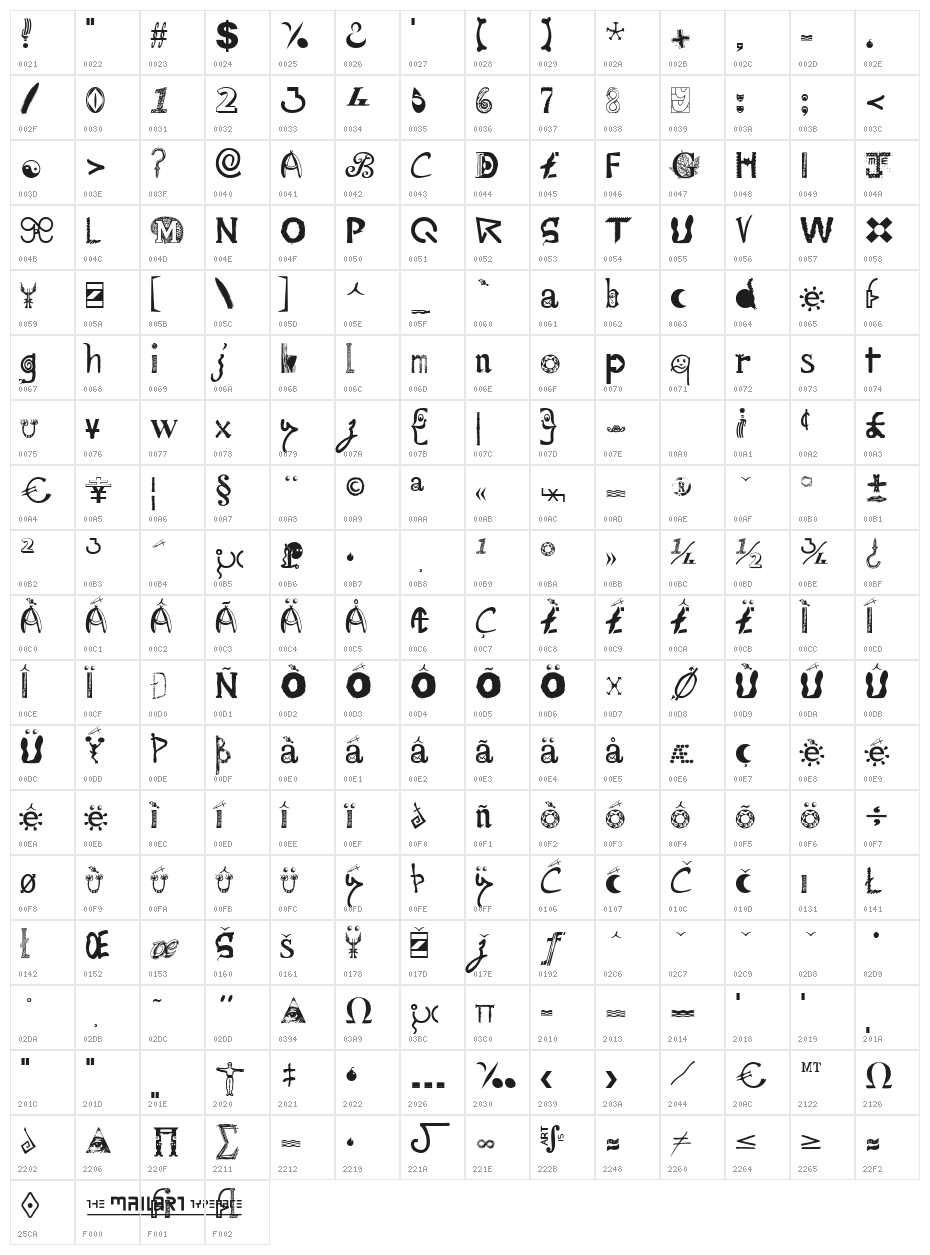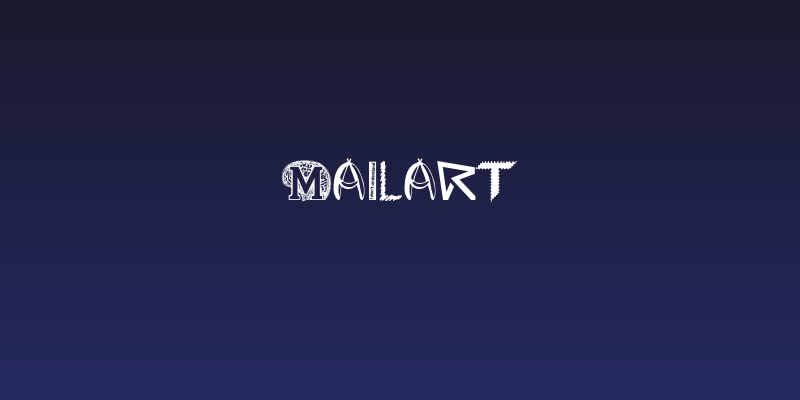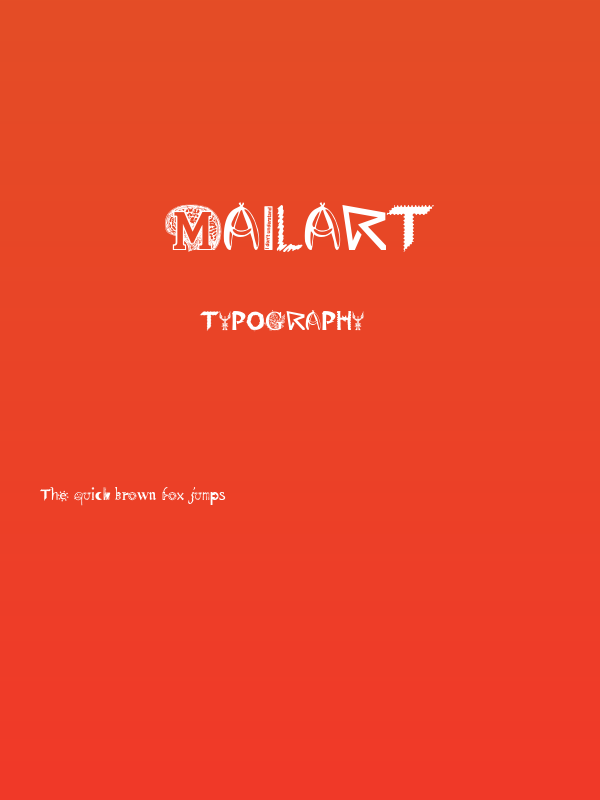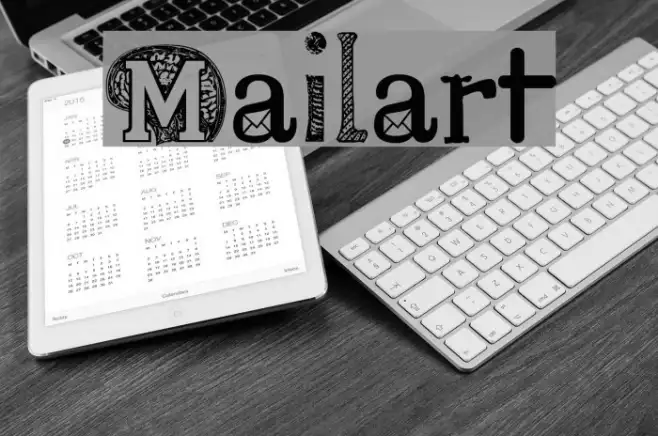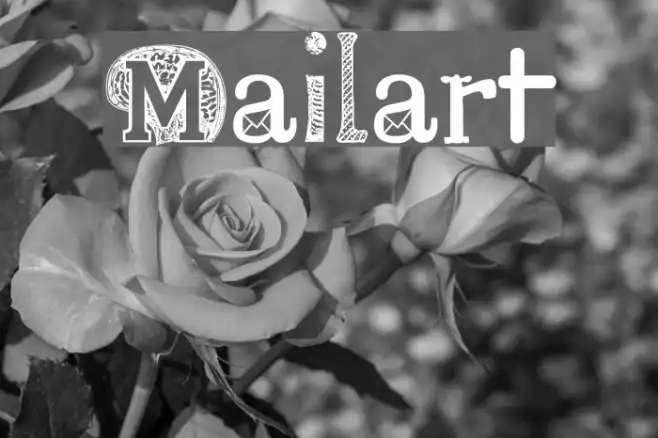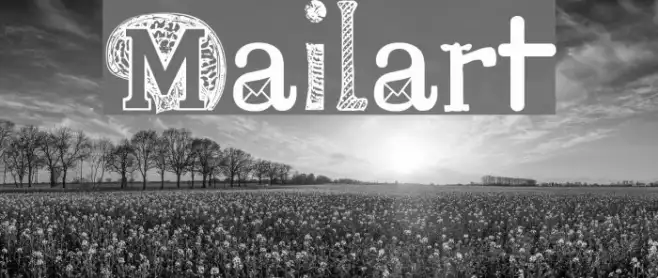
Mailart Font
Mailart Description
This font is a highly creative and eclectic display typeface, featuring a diverse array of artistic styles within each character. Each letter and number is uniquely designed, incorporating elements such as abstract shapes, intricate patterns, and playful motifs. The uppercase and lowercase letters exhibit a wide range of artistic influences, from whimsical and cartoonish to more structured and geometric forms. The special characters continue this theme, adding a touch of humor and surprise. This font is perfect for projects that require a bold and artistic statement, offering a unique visual experience that captures attention and sparks imagination.
| Overall Style | Artistic, Whimsical, Eclectic |
| Use Case | Headlines, Posters, Artistic Projects |
| Proposed Projects | Ideal for creative projects such as posters, album covers, art installations, and any design work that benefits from a bold, artistic flair. |